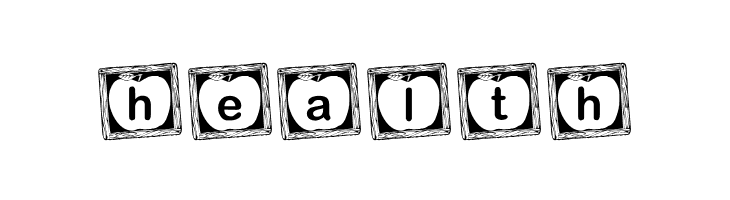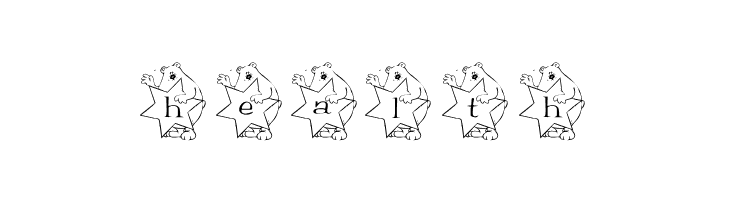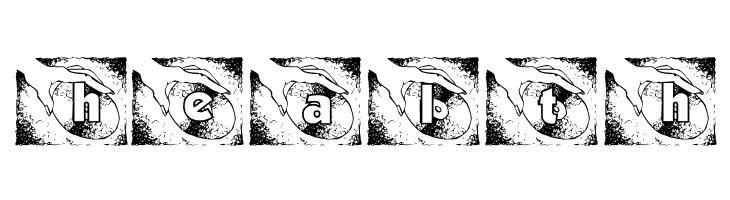
( GeelynEdits - plus.google.com/u/0/108461348931992643310/ )
A playful, heart-enclosed font with a handwritten, brush-like style.
( GeelynEdits - plus.google.com/u/0/108461348931992643310/ )
A decorative font with characters enclosed in heart shapes, offering a playful and romantic style.
( GeelynEdits - plus.google.com/u/0/108461348931992643310/ )
A playful, heart-enclosed handwritten font perfect for romantic or themed designs.
( Google - developer.android.com )
A geometric, angular script with uniform line thickness enclosed in square boxes.
( Grafito Design - dibujosenlinea.ideasintegrales.net )
A bold, hexagon-enclosed decorative font with a modern, playful style.
( Kat's Fun Fonts - www.katsfunfonts.com/ )
A playful, decorative font with characters enclosed in textured squares, ideal for creative projects.
( Katz Fontz - katzfonts.50megs.com/kg.html )
A whimsical font with characters enclosed in cartoonish bear shapes, perfect for playful designs.
( Katz Fontz - katzfonts.50megs.com/kg.html )
A decorative font with characters enclosed in vintage-style frames.
( LeChefRene - members.aol.com/lcrfonts/ )
A whimsical font with characters enclosed in heart shapes with wings.
( LeChefRene - members.aol.com/lcrfonts/ )
An ornate decorative font with characters enclosed in rose baskets.